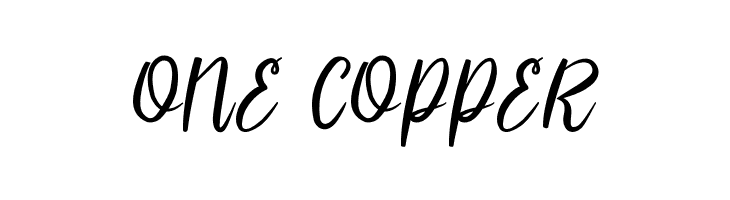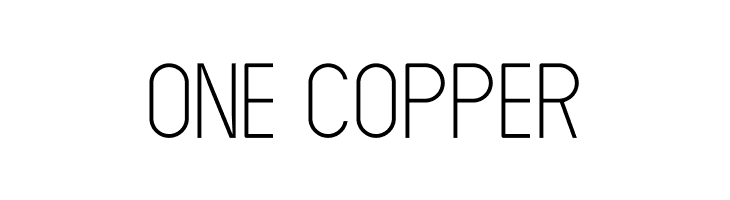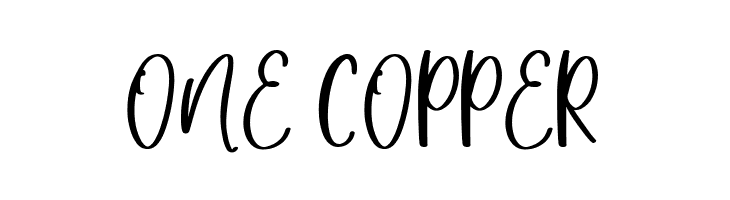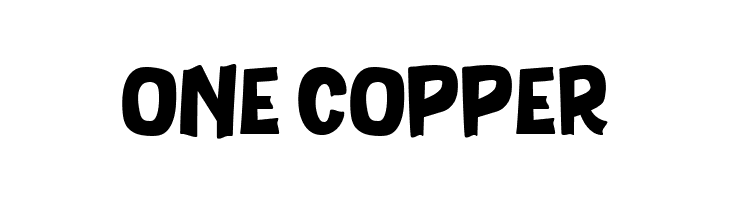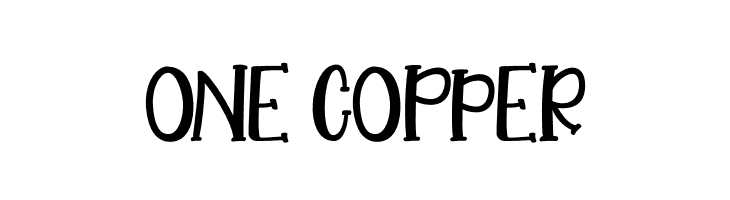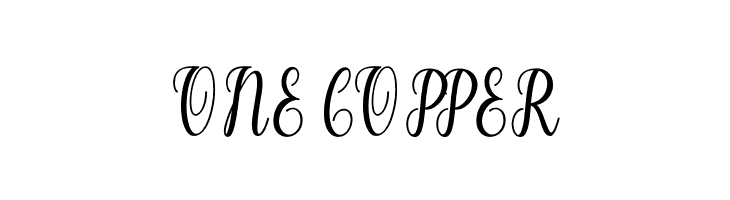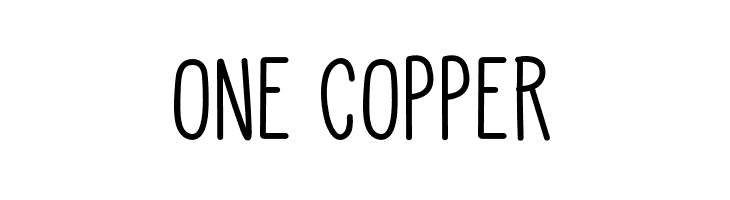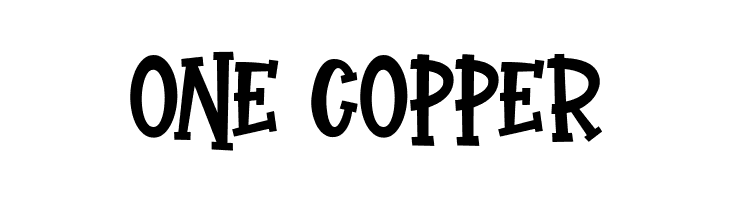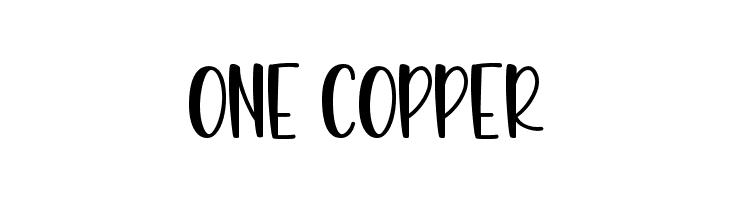
A bold, distressed font with an industrial and vintage aesthetic.
A modern, geometric sans-serif font with consistent stroke width and minimalist style.
A lively and elegant script font with fluid, cursive strokes.
A modern, geometric outline font with consistent stroke width and high legibility.
An elegant script font with flowing, cursive letterforms and sophisticated style.
An elegant script font with high contrast and flowing, cursive style.
A decorative lips-themed font with expressive, bold glyphs.
A cursive, handwritten-style font with elegant, flowing strokes.
A dynamic and flowing script font with elegant, connected letterforms.
A casual, handwritten font with a playful and personal touch.
A geometric, boxy font with a modern, digital aesthetic.
Elegant script font with a handwritten feel.
A playful, handwritten font with a whimsical and friendly style.
A playful, hand-drawn font with exaggerated curves and a whimsical style.
A playful, hand-drawn font with tall, narrow characters and a whimsical style.
Playful handwritten script font.
A playful, handwritten font with smooth, rounded strokes.
A playful, handwritten font with a smooth, flowing style.
A playful, handwritten font with dynamic strokes and a casual flair.
A bold, playful font with exaggerated curves and a whimsical style.
A playful, handwritten font with thin strokes and a casual style.